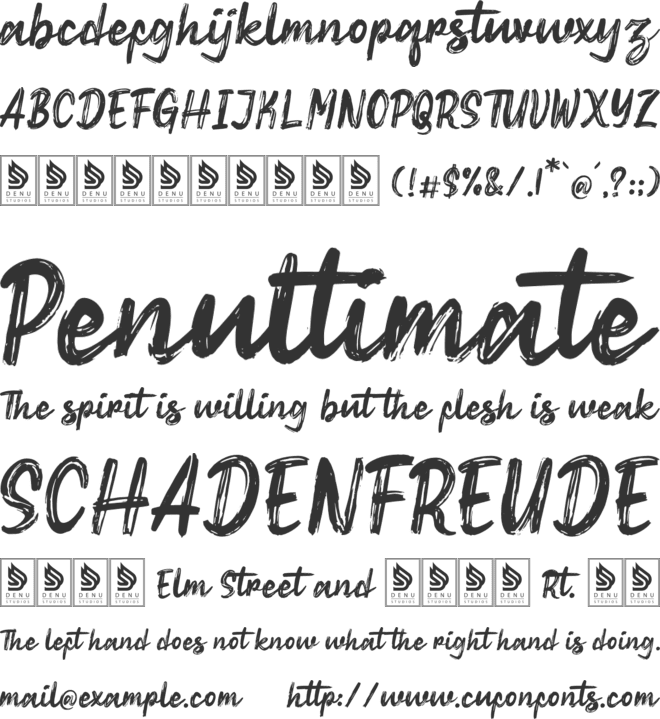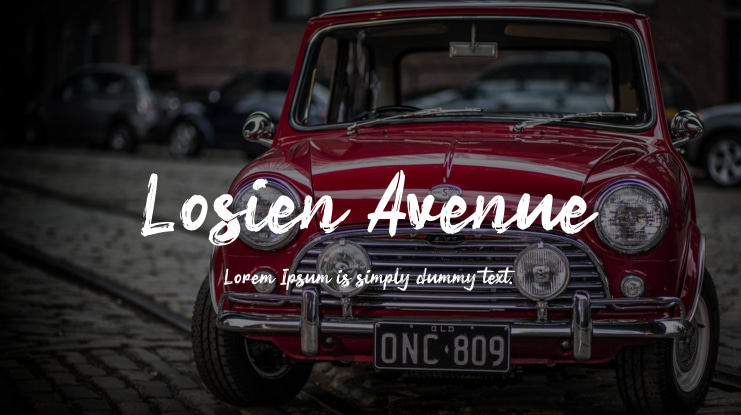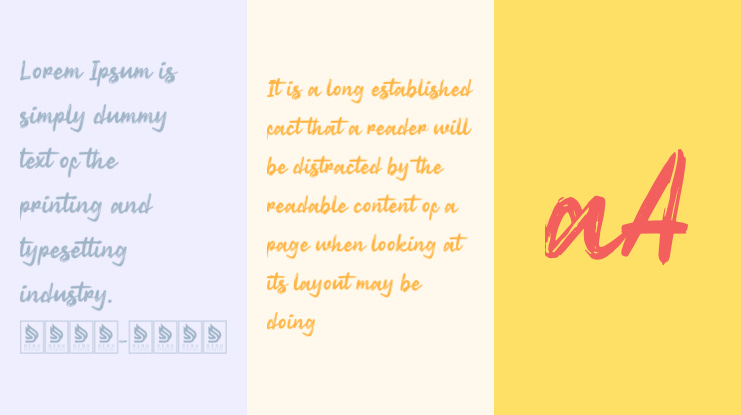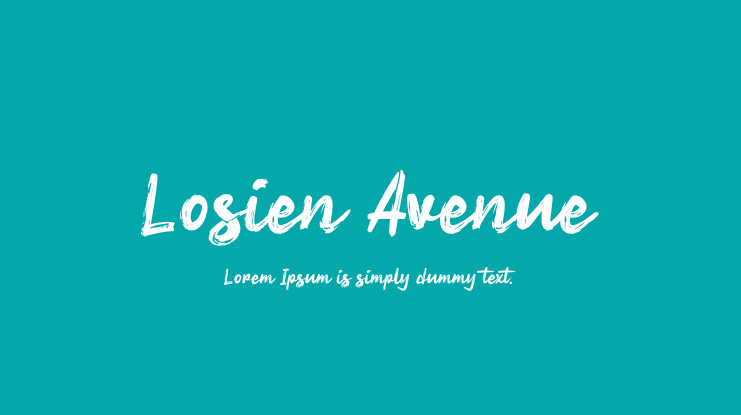
Losien Avenue | Brush Handwritten is suitable for any projects such as: logos, branding projects, homeware designs, product packaging, mugs, quotes, posters, shopping bags, t-shirts, book covers, name card, invitation cards, greeting cards, label, photography, watermark, special events, and all your other lovely projects that need a Brush Handwritten taste.